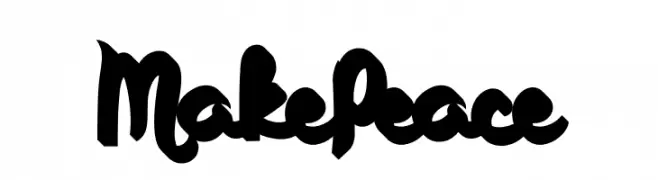
A bold, brush-style font with an energetic and dynamic appearance.
A playful, bold 3D font with a hand-drawn aesthetic.
A bold, 3D font with a retro, impactful style and strong outlines.
A casual, handwritten cursive font with dynamic strokes.
A bold, textured font with a graffiti-inspired style.
A bold, expressive handwritten font with flowing strokes and a playful style.
A playful, casual handwritten font with flowing lines and whimsical letterforms.
A playful and elegant script font with smooth, flowing curves.
A bold, expressive script font with flowing, cursive letterforms.
A bold, geometric font with a modern and industrial style.